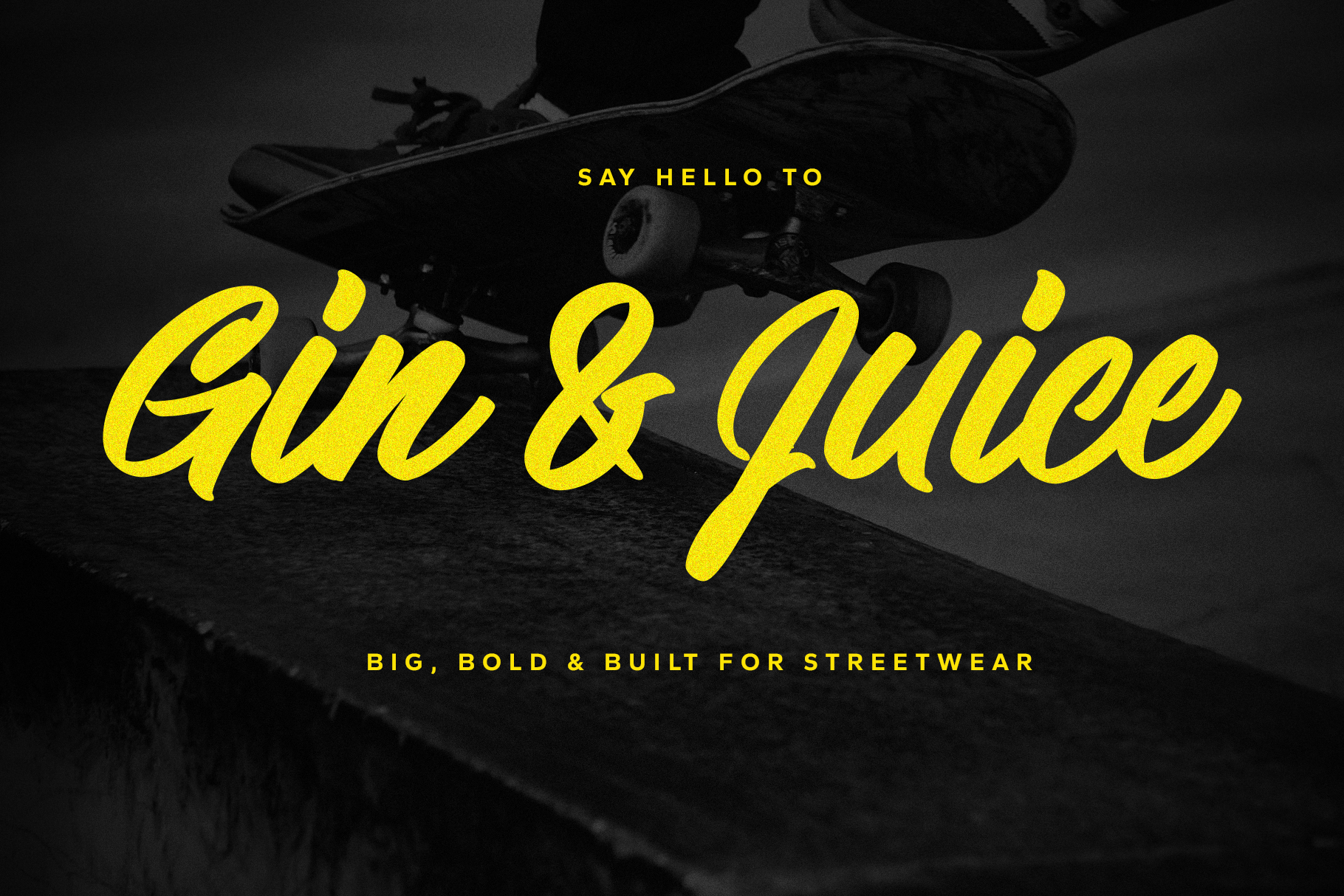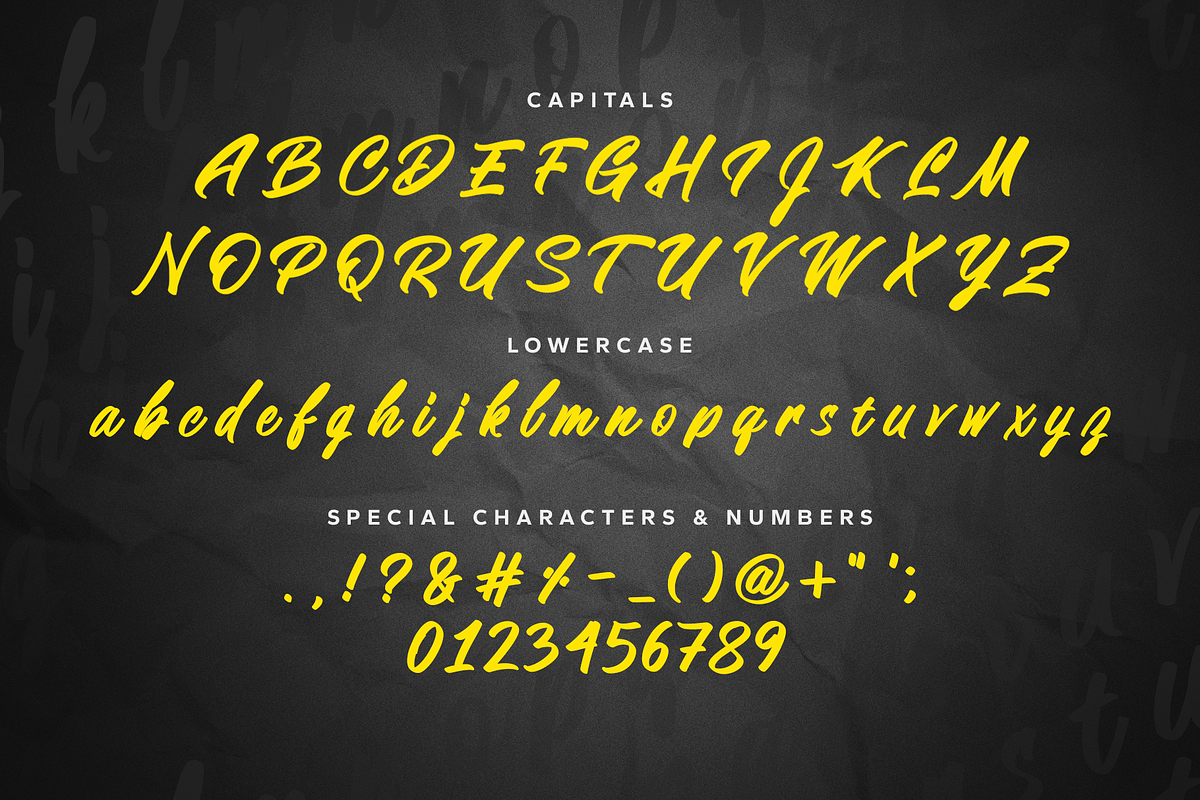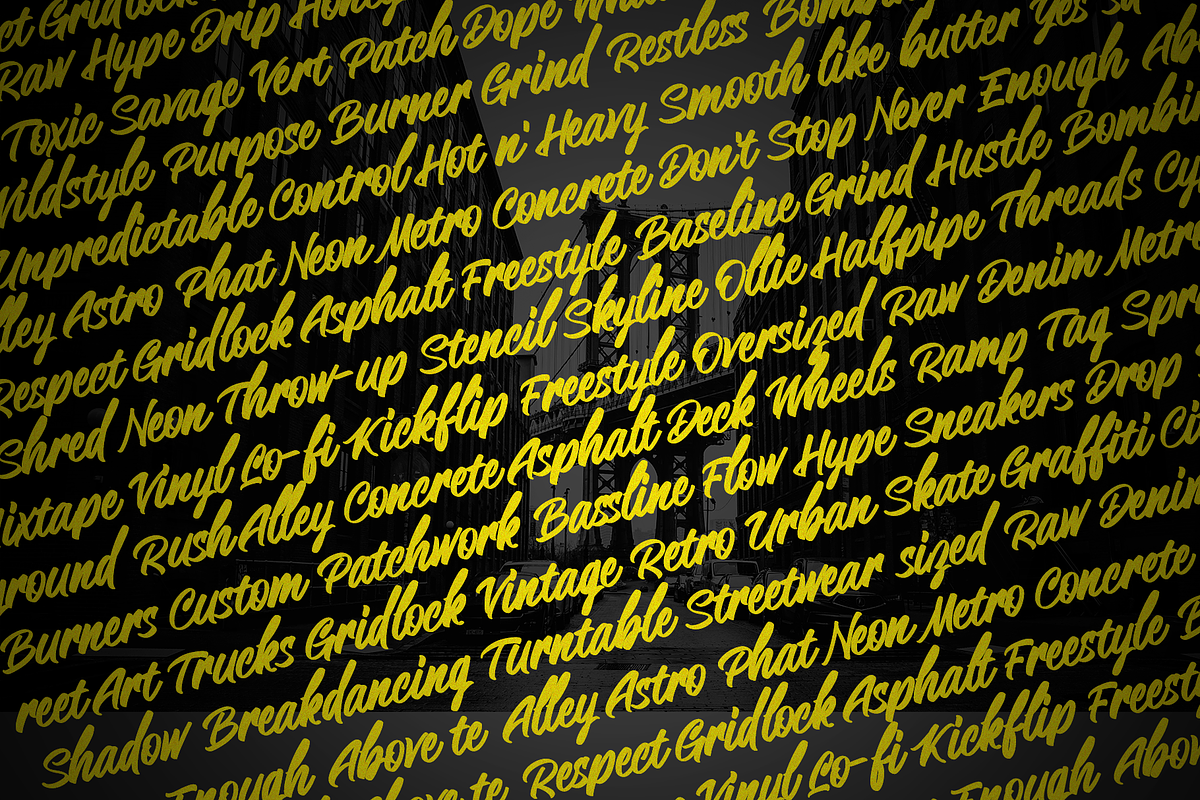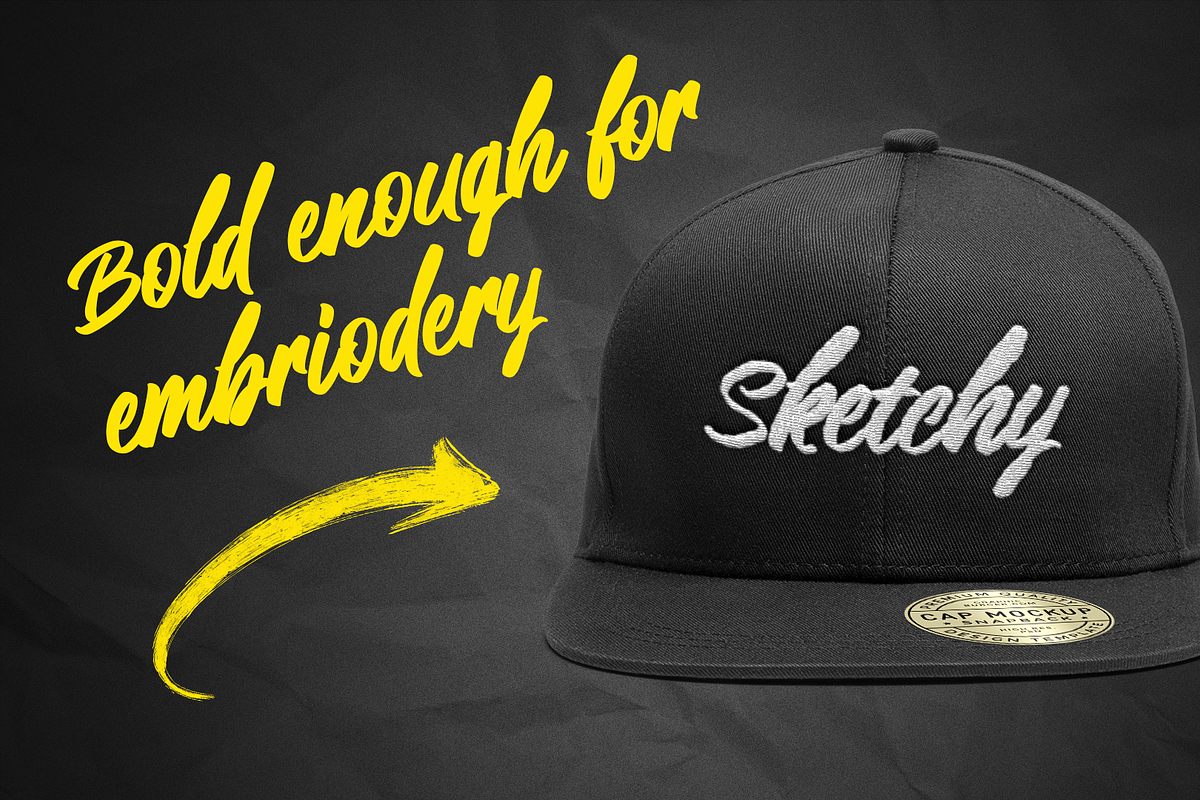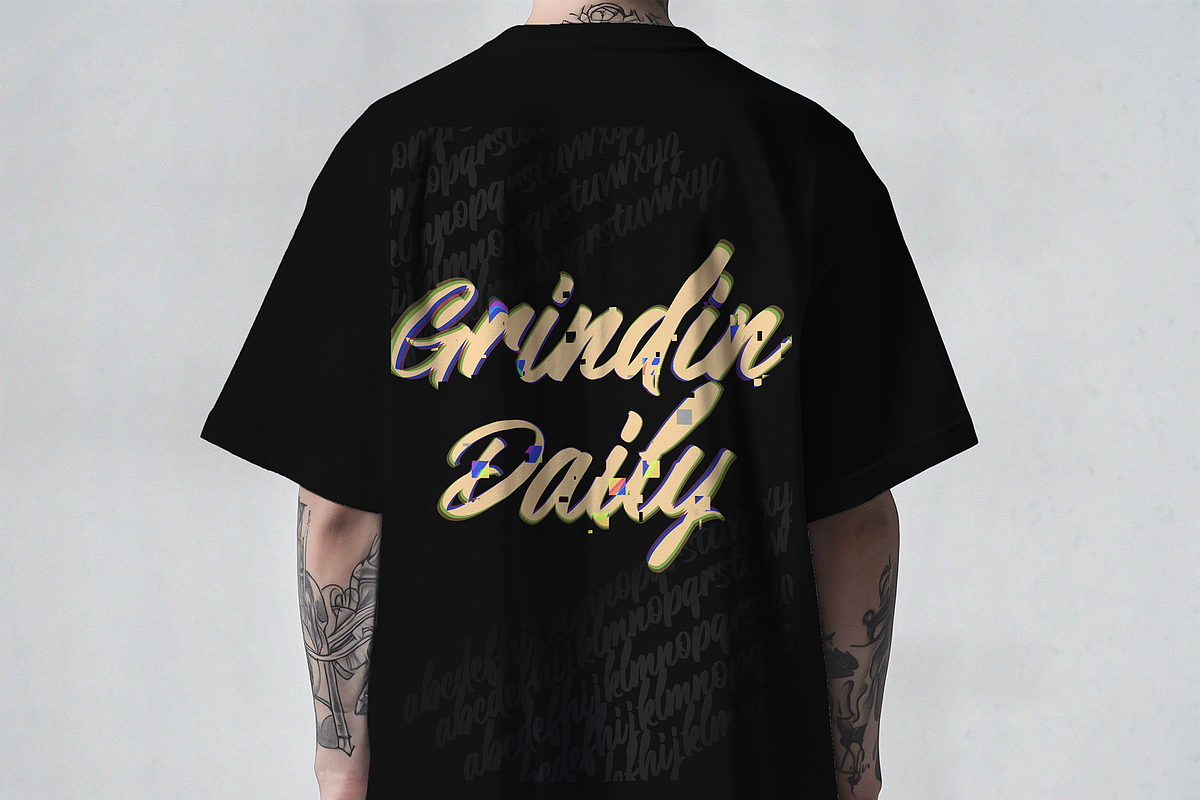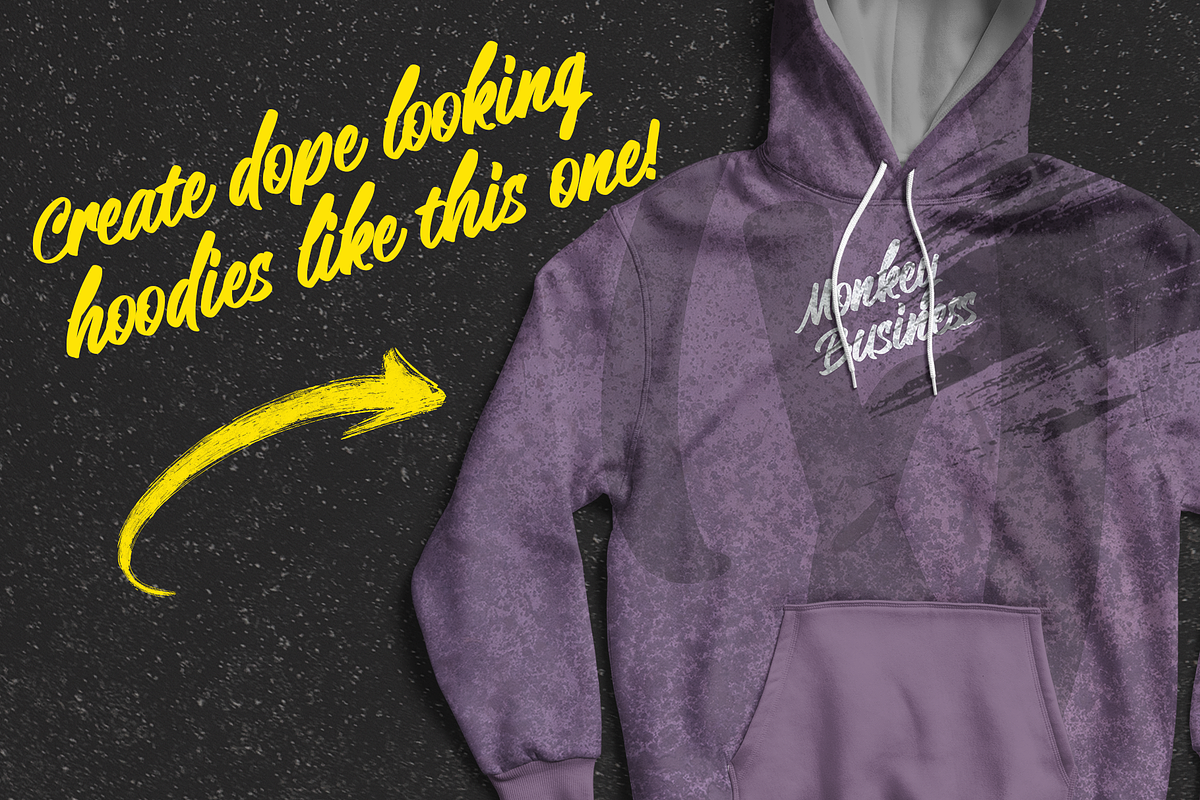
Gin & Juice - Handwritten Font
Unleash the perfect blend of bold curves and urban grit with Gin & Juice — a hand-crafted script font inspired by the raw energy of streetwear, skate culture, and graffiti art.
Designed for those who live outside the lines, Gin & Juice combines smooth brush strokes with rugged details, creating a font that feels both effortless and rebellious. Its bold, flowing letters make it ideal for: ✔ Streetwear designs – Hoodies, tees, and caps ✔ Branding and logos – Skate brands, tattoo parlors, and indie shops ✔ Posters and signage – Graffiti-inspired wall art ✔ Social media graphics – Attention-grabbing headlines and quotes
💥 Features: Full uppercase and lowercase characters Numbers and punctuation Smooth and rough brush details for that handmade feel OTF format included Whether you’re creating a logo for a skate brand, designing streetwear, or adding some edge to your social content — Gin & Juice gives your work that unmistakable street-style edge.